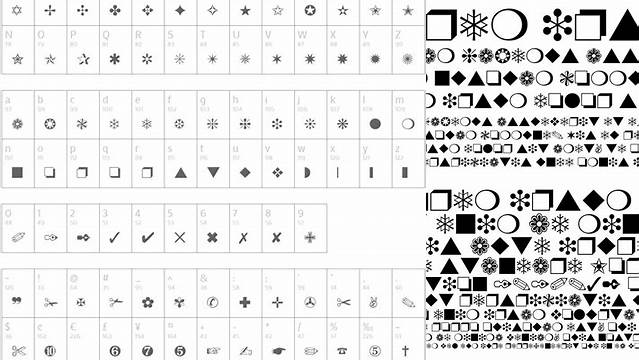
Hey guys! Ever stumbled upon a font that just sparks joy? That’s Pierre Dingbats for me! This font is not your typical A-B-C, it's all about fun little symbols and quirky designs. If you're looking to add a dash of whimsy to your projects, then Pierre Dingbats is definitely worth checking out. Today, we're diving deep into where you can snag this font for free, how to use it, and all the cool things you can do with it. So, grab your creative hats, and let’s get started!
What is Pierre Dingbats Font?
So, what exactly is Pierre Dingbats? Well, it's a dingbat font! Now, if you're scratching your head, a dingbat font isn't your standard lettered typeface. Instead, it’s a font filled with symbols, icons, and other fun little graphics. Pierre Dingbats, in particular, has a unique style that sets it apart from the rest. Think playful, hand-drawn elements that can add a touch of personality to any design. Whether you're working on invitations, posters, or even just sprucing up your social media posts, Pierre Dingbats can bring a unique flair. The charm of Pierre Dingbats font lies in its ability to convey ideas and emotions through visuals rather than traditional text. This can be incredibly useful in projects where you want to add a bit of fun, whimsy, or a touch of the unexpected. Imagine using these delightful symbols to create bullet points, decorate headings, or even craft entire visual stories! The possibilities are truly endless, making it a versatile tool in any designer's or hobbyist's toolkit. Plus, who doesn't love a free resource that can make their work stand out? So, keep reading to find out where you can get your hands on this gem and start adding a bit of Pierre Dingbats magic to your projects today.
Creating Logos with Pierre Dingbats
Okay, let's talk about creating logos with Pierre Dingbats font free download. This font might not be the first thing that comes to mind when you think of logo design, but hear me out! Its unique, whimsical characters can add a distinctive touch to your brand identity. Start by brainstorming ideas. What kind of image do you want your logo to convey? Playful? Modern? Elegant? Pierre Dingbats can work for a variety of styles, depending on how you use it. Experiment with different combinations of dingbats. Some symbols might work well together, while others might clash. Try using a single dingbat as the main element of your logo, or combine several dingbats to create a more complex design. Remember to keep it simple and memorable. A good logo should be easy to recognize and remember. Once you have a design you like, refine it. Adjust the size, spacing, and colors of the dingbats to create a visually appealing logo. You can also add text to complement the dingbats and spell out your brand name. If you're using design software like Adobe Illustrator, you can convert the dingbats to outlines and then edit them as vector shapes. This gives you even more control over the final design. And that’s it! You’ve created a logo with Pierre Dingbats. This can be a great way to stand out from the crowd and create a memorable brand identity. Just remember to use it sparingly and make sure it aligns with your overall brand image.
Designing Invitations with Pierre Dingbats
Now, let’s dive into designing invitations with Pierre Dingbats font free download. This font is perfect for adding a touch of whimsy and personality to your invites, whether you're planning a birthday party, a wedding, or any other special event. Start by choosing a theme for your invitation. Are you going for a rustic, elegant, or playful look? Pierre Dingbats can complement a variety of themes, so let your creativity guide you. Experiment with different dingbats to find the perfect ones for your invitation. Use them to decorate borders, create dividers, or add visual accents to your text. Remember to keep the design balanced and not too cluttered. A clean, well-organized invitation is always more appealing. Use Pierre Dingbats to highlight important information, such as the date, time, and location of the event. You can also use it to create a fun and engaging RSVP section. Don’t be afraid to mix and match dingbats to create unique patterns and designs. If you're using design software like Adobe Photoshop or Illustrator, you can add colors, gradients, and effects to your dingbats to make them even more visually appealing. And that’s it! You’ve designed a beautiful invitation with Pierre Dingbats. This is a great way to add a personal touch to your event and create something truly memorable. Just remember to keep it fun and let your creativity shine!
Pierre Dingbats Font: A Summary